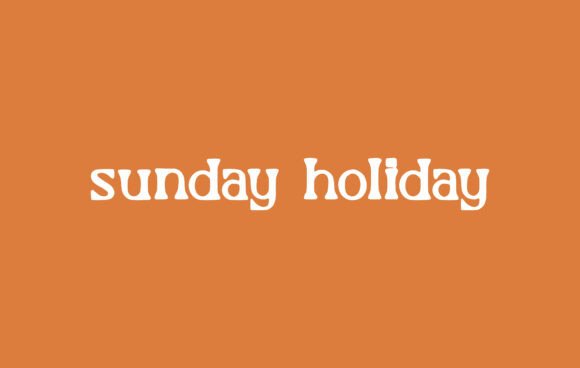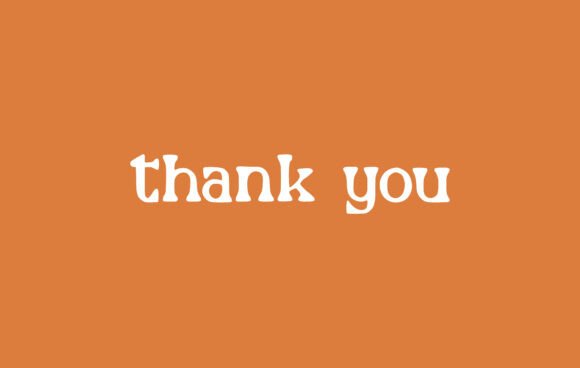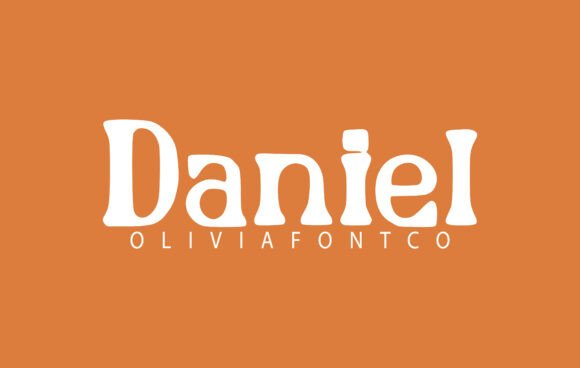
Discover the Charm of Daniel Font: Elevate Your Designs with a Romantic Touch
In the world of typography, a well-crafted font can make all the difference in bringing your creative vision to life. If you’re on the hunt for a typeface that exudes warmth, personality, and a touch of romance, look no further than Daniel Font. This authentic handwritten font is expertly designed to capture the hearts of designers and crafters alike, offering a versatile and legible solution for a wide range of projects.
The Essence of Daniel Font
Daniel Font is more than just a collection of letters; it’s a gateway to infusing your designs with a sense of elegance and whimsy. Its authentic handwritten feel lends a personal touch to any project, making it perfect for those seeking to add a dash of character to their work. Whether you’re crafting magazine headlines, social media graphics, branding materials, or wedding invitations, Daniel Font is poised to become your new favorite companion.
Key Features of Daniel Font
- Authentic Handwritten Style: Daniel Font boasts a genuine, handcrafted look that sets it apart from more generic typefaces. Its unique character ensures your designs stand out in a crowded digital landscape.
- Romantic Touch: With its elegant strokes and charming letterforms, Daniel Font adds a romantic flair to any design. This makes it particularly well-suited for projects like wedding invitations, greeting cards, and other celebratory materials.
- Legibility: Despite its decorative nature, Daniel Font remains highly legible, making it an excellent choice for both title text and body paragraphs. This versatility is invaluable for designers who need a font that can adapt to various roles within a project.
- Wide Range of Applications: From digital media to print, Daniel Font’s flexibility shines. Use it for:
- Magazine headlines and article text
- Social media posts and stories
- Wedding invitations and event announcements
- Greeting cards and personal stationery
Why Choose Daniel Font?
In a sea of digital fonts, Daniel Font stands out for its ability to convey emotion and personality. Its handcrafted nature gives designs a distinctly human feel, one that resonates with audiences and sets your work apart. Here are a few compelling reasons to make Daniel Font a part of your design toolkit:
- Emotional Connection: Fonts like Daniel Font have the power to evoke emotions and create a connection with the viewer. Its romantic and whimsical nature makes it perfect for projects where you want to leave a lasting impression.
- Versatility: Daniel Font’s adaptability means you can use it across a variety of projects without worrying about it looking out of place. This versatility can significantly streamline your design process.
- Professional Quality: Despite its personal, handwritten feel, Daniel Font maintains a level of professionalism that makes it suitable for a wide range of applications, from business branding to personal projects.
Tips for Using Daniel Font Effectively
To get the most out of Daniel Font, consider the following tips:
- Mix and Match: Combine Daniel Font with other typefaces to create visual interest. Its handwritten nature pairs well with clean, sans-serif fonts for a striking contrast.
- Play with Size: Daniel Font’s legibility and charm are preserved at various sizes, making it suitable for both headings and body text. Experiment with different sizes to find the perfect balance for your design.
- Color Matters: Enhance the romantic feel of Daniel Font with soft, pastel colors or make it pop with bold, contrasting hues. The right color choice can significantly amplify the font’s impact.
Daniel Font is more than just a typeface; it’s a tool for designers and crafters to imbue their projects with a touch of romance and authenticity. Its legibility, versatility, and charming aesthetic make it an invaluable asset for anyone looking to elevate their designs. Whether you’re working on a wedding invitation, a brand identity, or a social media campaign, Daniel Font offers the perfect blend of elegance and whimsy to make your work shine.
So, why wait? Discover the potential of Daniel Font and let its romantic charm breathe new life into your designs.